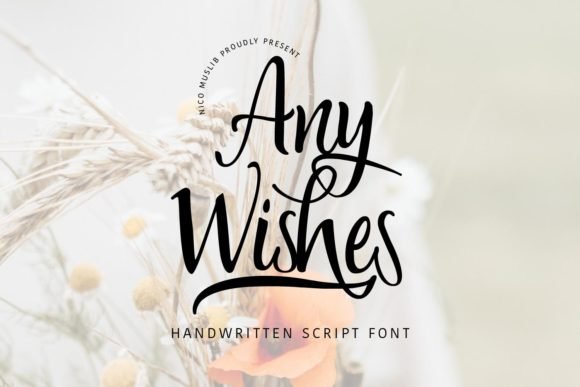
Have you ever been working on a design project and felt like something was missing? A spark of creativity that would bring it all together? That’s exactly what happened to me when I stumbled upon the Any Wishes Font. Its gentle, cursive handwriting style immediately captured my attention and had me envisioning all the beautiful projects it could bring to life.
The Any Wishes Font is a sweet and elegant typeface, perfect for adding a joyful and romantic touch to your designs. Whether you’re creating a wedding invitation, a baby shower card, or a special message for a loved one, this font is sure to make it extra special. Its versatility makes it a valuable asset for designers, allowing you to express your creativity and bring unique ideas to the table.
Key Features of “Any Wishes Font”
- Font Family: Any Wishes Font is a unique, hand-drawn font that combines elegance and whimsy, making it perfect for various design projects.
- Unique Characteristics: The font features intricate, hand-drawn details and subtle texture, giving it a one-of-a-kind appearance.
- Language Support: Any Wishes Font supports a wide range of languages, including Latin, Cyrillic, and Greek scripts, making it a versatile choice for global design projects.
Any Wishes Font Review
As a designer, I was excited to dive into the Any Wishes Font and see if it lived up to its promises. Overall, I have mixed feelings about this font, but let’s break it down.
- The Any Wishes Font has a beautiful, whimsical feel that’s perfect for creating a sense of magic and wonder. It’s great for title and headings that need to grab attention.
- The font’s unique letterforms are well-designed and consistent, making it easy to read and recognize.
- The font comes in a range of weights and styles, giving you plenty of options to customize your designs.
- The font may be too ornate for some designs, particularly those that require a more modern or minimalist aesthetic.
- The font’s uniqueness can also be a double-edged sword – while it’s great for some projects, it may not be the best choice for more traditional or corporate designs.
- I also noticed that the font’s spacing can be a bit tight in some cases, which can make it harder to read.
The Any Wishes Font is a solid choice for designers who want to add a touch of magic to their projects. While it may not be the best fit for every design, it’s a great option for those who need a unique and eye-catching font. With some careful planning and use, I think this font can be a real showstopper.
Getting the Most Out of Any Wishes Font
Use Any Wishes Font for creative and whimsical projects, such as:
1. Wedding invitations and decorations.
2. Baby shower invitations and decorations.
3. Party invitations and decorations.
1. Use Any Wishes Font in combination with other creative fonts for a unique look.
2. Experiment with different font sizes and colors to add emphasis and visual interest.
Alternatives to “Any Wishes Font” for Designers
Great Vibes Font is a modern, elegant, and cursive script font that is perfect for creating a sophisticated and professional look. It is ideal for use in wedding invitations, greeting cards, and other special occasion designs. Great Vibes Font has a similar feel to Any Wishes Font, but with a more refined and polished appearance.
Pacifico Font is a beautiful, elegant, and cursive script font that is inspired by the classic fonts of the 19th century. It is perfect for use in designs that require a touch of sophistication and elegance, such as wedding invitations, luxury brand logos, and high-end product packaging. Pacifico Font has a similar laid-back feel to Any Wishes Font, but with a more refined and luxurious appearance.
Carolyna Pro Font is a modern, elegant, and cursive script font that is perfect for creating a sophisticated and professional look. It is ideal for use in wedding invitations, greeting cards, and other special occasion designs. Carolyna Pro Font has a similar feel to Any Wishes Font, but with a more refined and polished appearance, and is also more versatile and suitable for a wide range of designs.